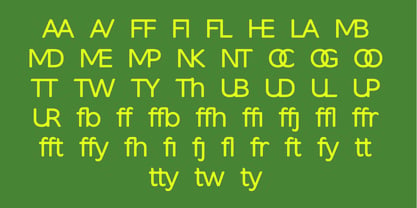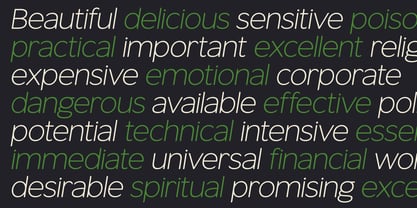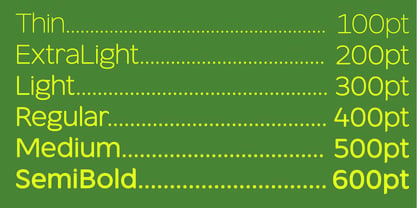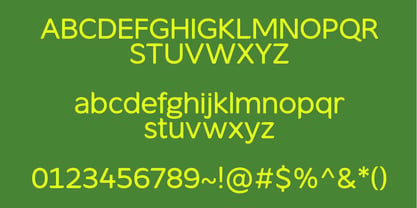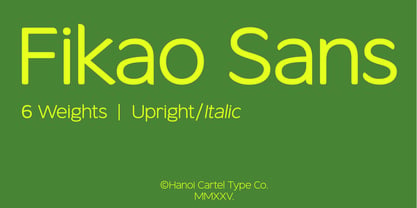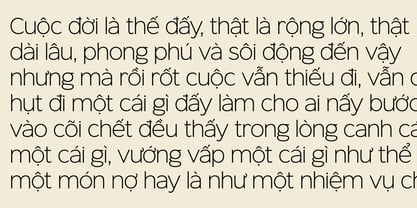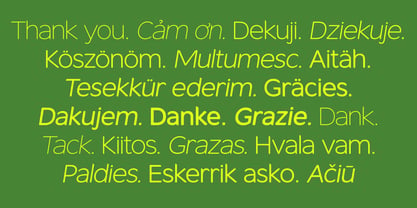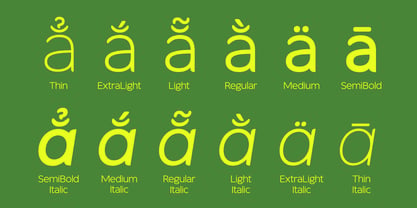
Fikao Sans
by Hanoi Cartel
The Fikao Sans Font Family was designed by and published by Hanoi Cartel. Fikao Sans contains 12 styles and family package options. More about this family
Fikao Sans was intendedly designed to become a versatile and impeccably clean sans-serif typeface made for clarity and contemporary appeal. The typeface aims to strike a very delicate balance between geometric precision and humanistic approachability, and with an extensive language support, Fikao Sans hopes to become the workhorse typeface for a modern but friendly consumer brand, or to be extensively used on a range of print materials. Inspired by classic modernist design principles, we stripped away the non-essentials to create letterforms that are legible, open, and aesthetically pleasing even at small sizes. The generous x-height and uniform stroke weight (as seen in both the uppercase and lowercase sets) ensure exceptional readability across print and digital media.
About Hanoi Cartel
Hanoi Cartel is a type foundry based in Hanoi, Vietnam, dedicated to crafting soulful and culturally resonant typefaces. The foundry places a strong emphasis on extensive language support, aims to make its typefaces accessible and versatile for diverse linguistic needs.Deeply rooted in Vietnam’s visual history, Hanoi Cartel draws inspiration from two opposite yet influential design traditions of Vietnamese typography in the 20th century: The bold, assertive lettering styles of Vietnamese communist-era propaganda posters , which is very well-known for their powerful visual impact and ideological clarity. The intricate, handcrafted lettering of advertising boards in southern Vietnam before 1975, which reflect a more commercial, artisanal aesthetic with very creative solution for diacritics. By appreciating these visual legacies, we strive to create typefaces that are not only functional but also rich in narrative and cultural depth.